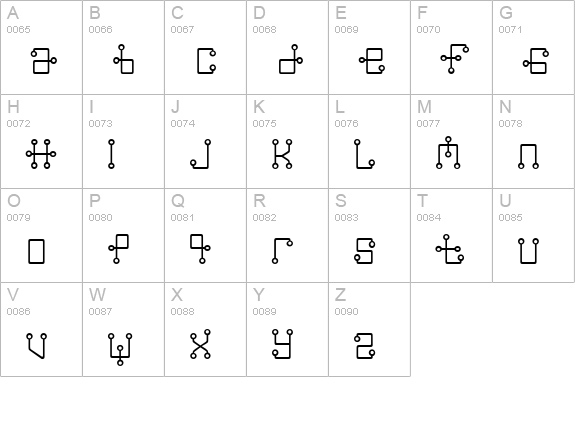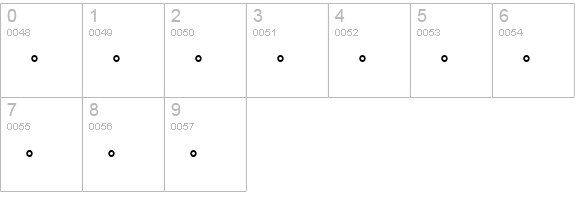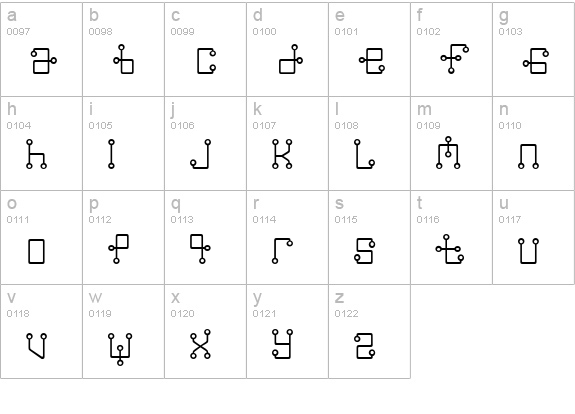
Greenwich Mean Time Font Details
Greenwich Mean Time font is a modern and versatile typeface that exudes elegance and sophistication. With its clean lines and balanced proportions, this font is perfect for a wide range of design projects, from branding to editorial design. The timeless appeal of Greenwich Mean Time font makes it a must-have in any designer's toolkit. The best part? Greenwich Mean Time font is available for free download at FontsMarket.com. This means you can access this high-quality font without any cost, making it a valuable addition to your font collection. Whether you're working on a personal project or a client's design, Greenwich Mean Time font will elevate your work to the next level. Download it today and experience the beauty and versatility of this stunning typeface.